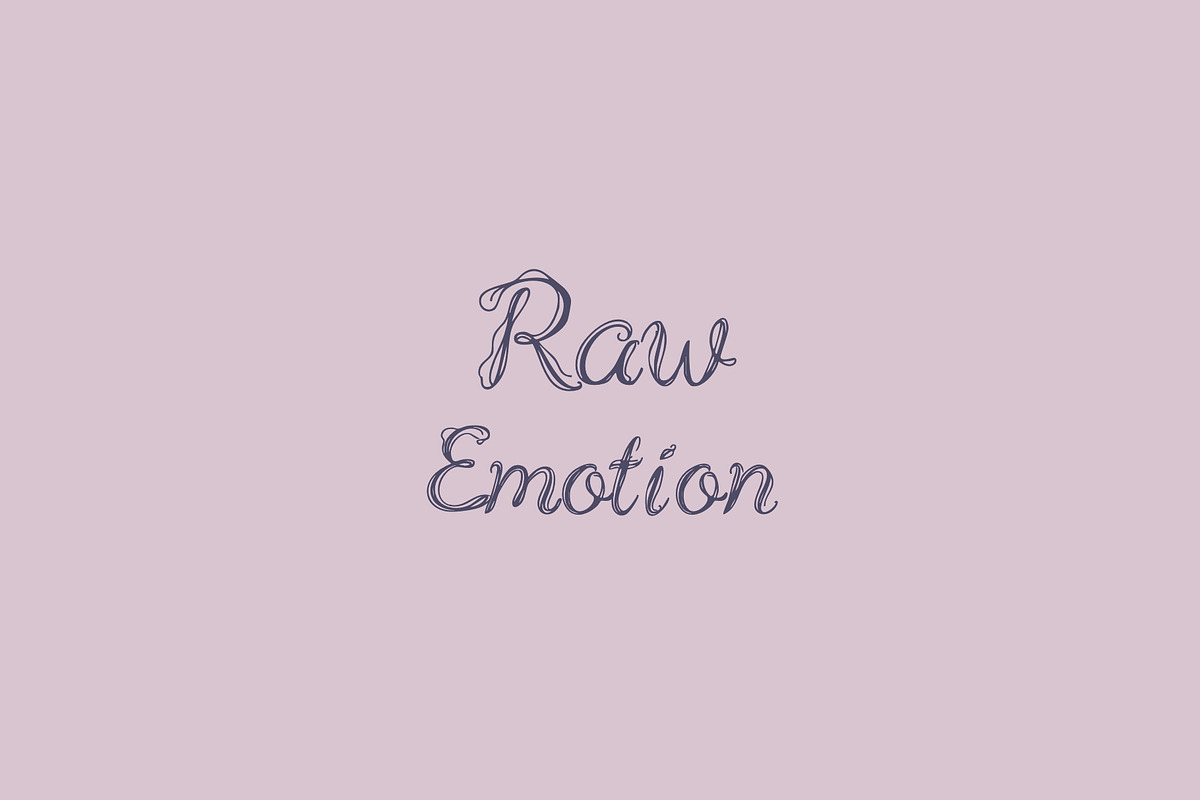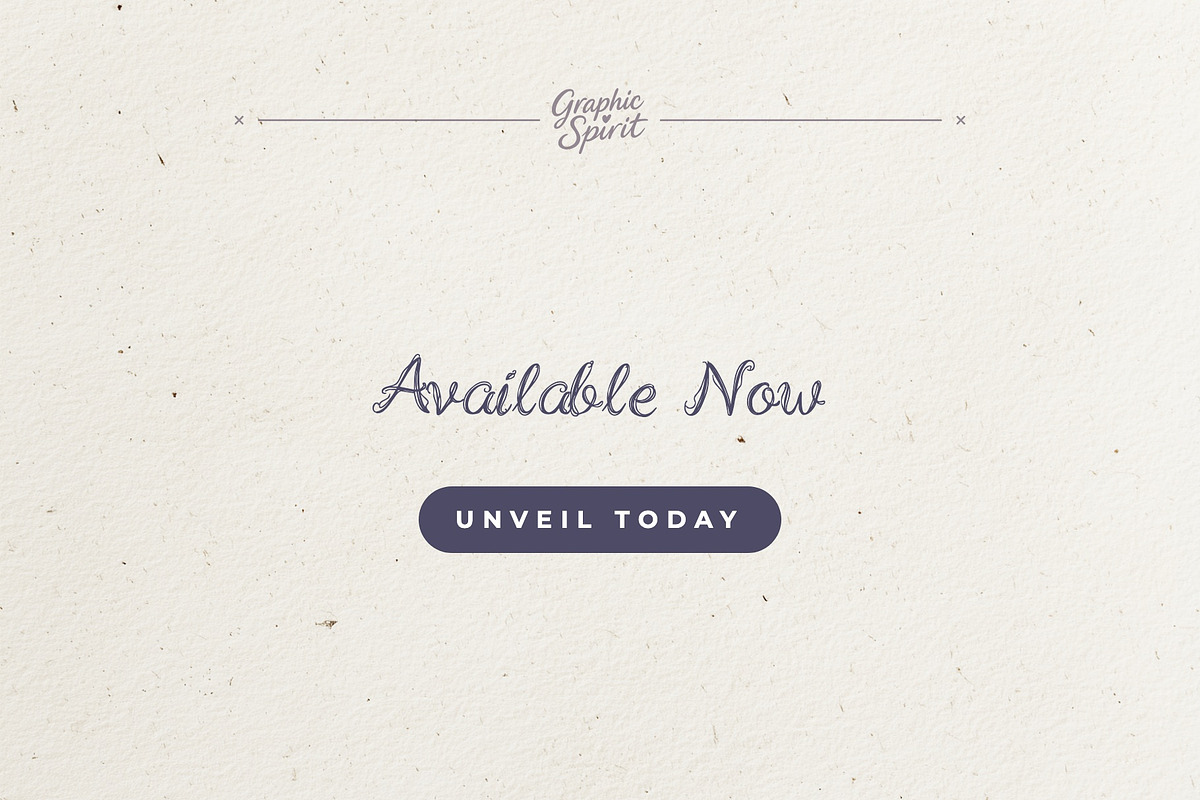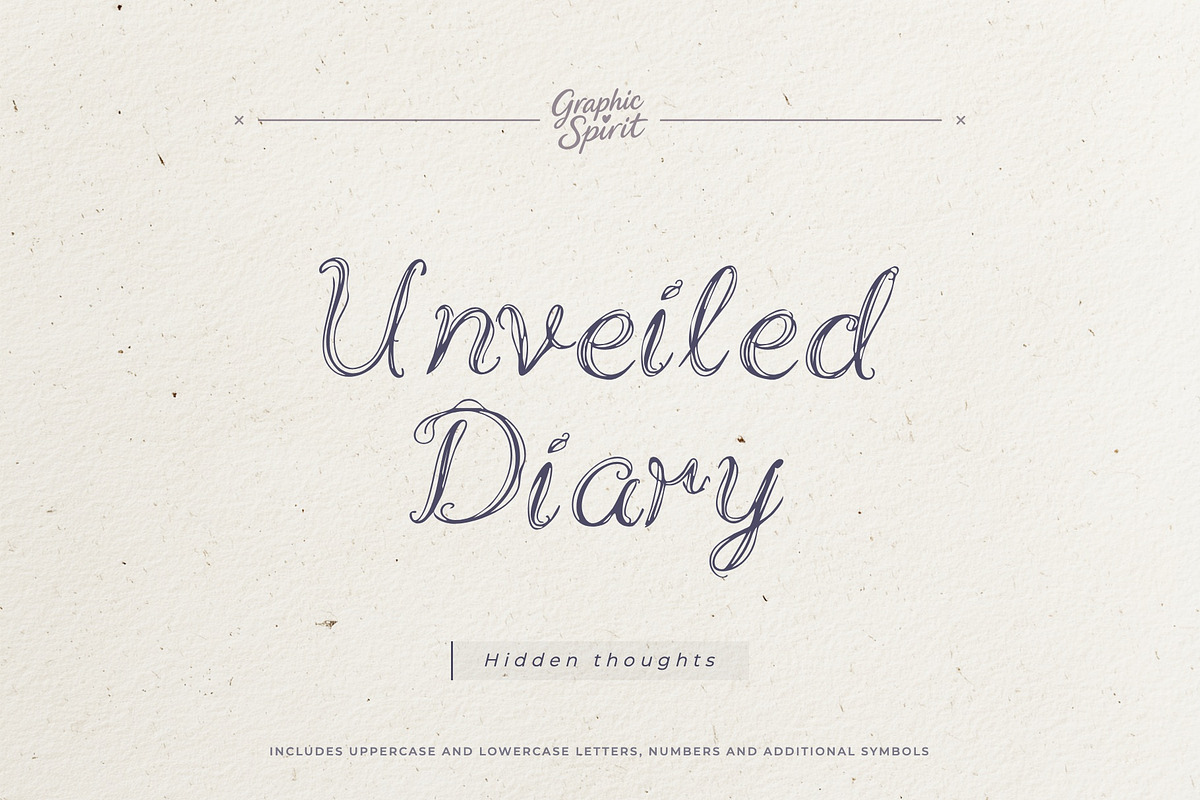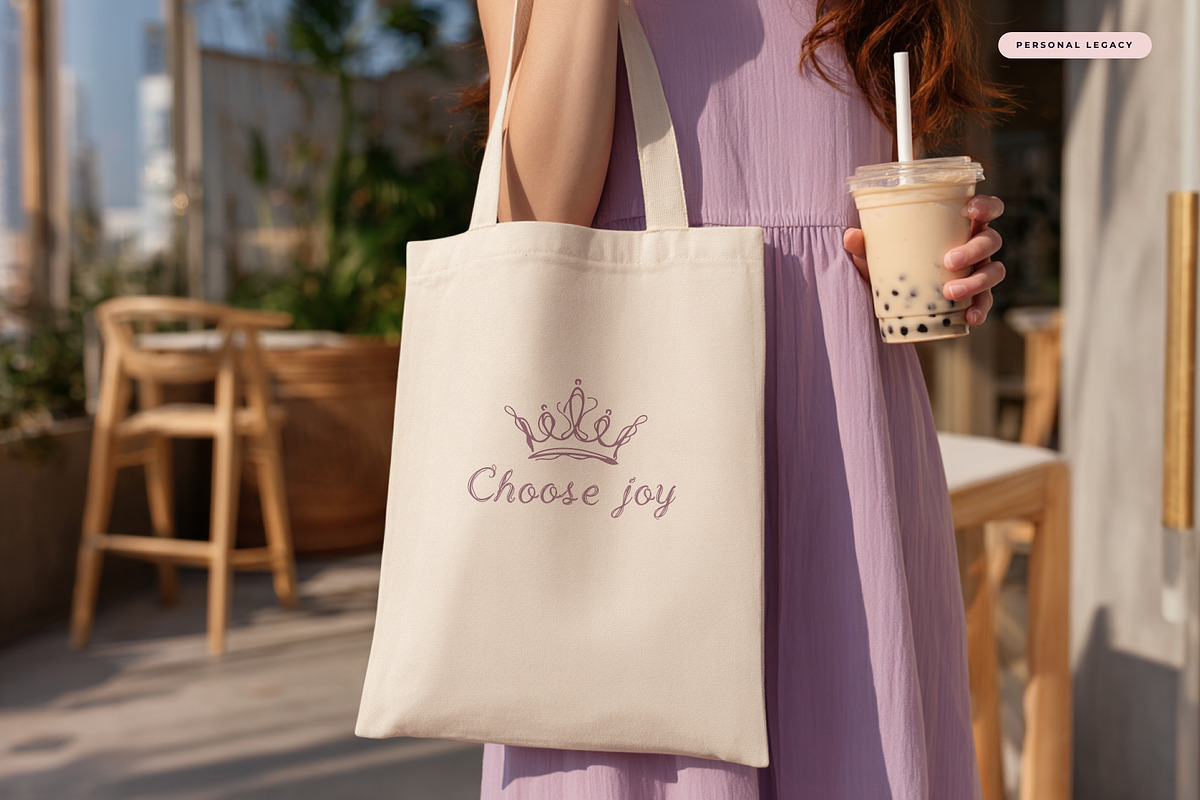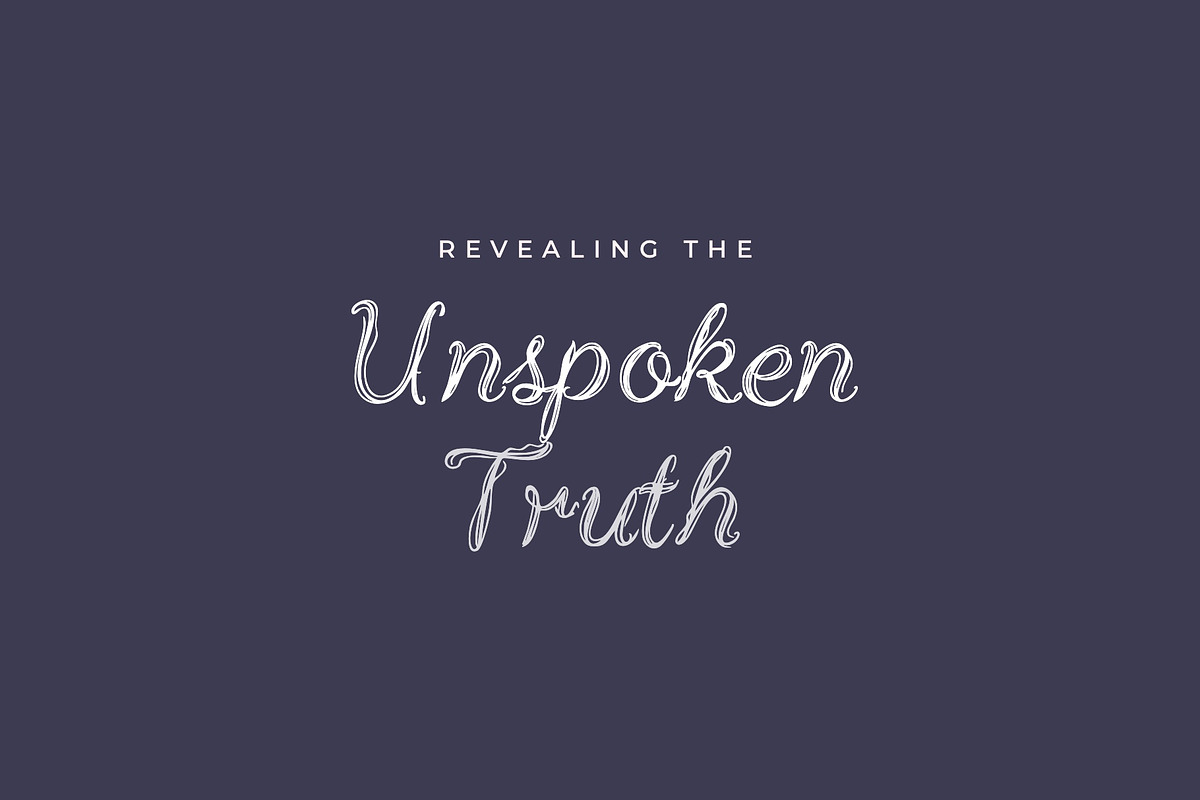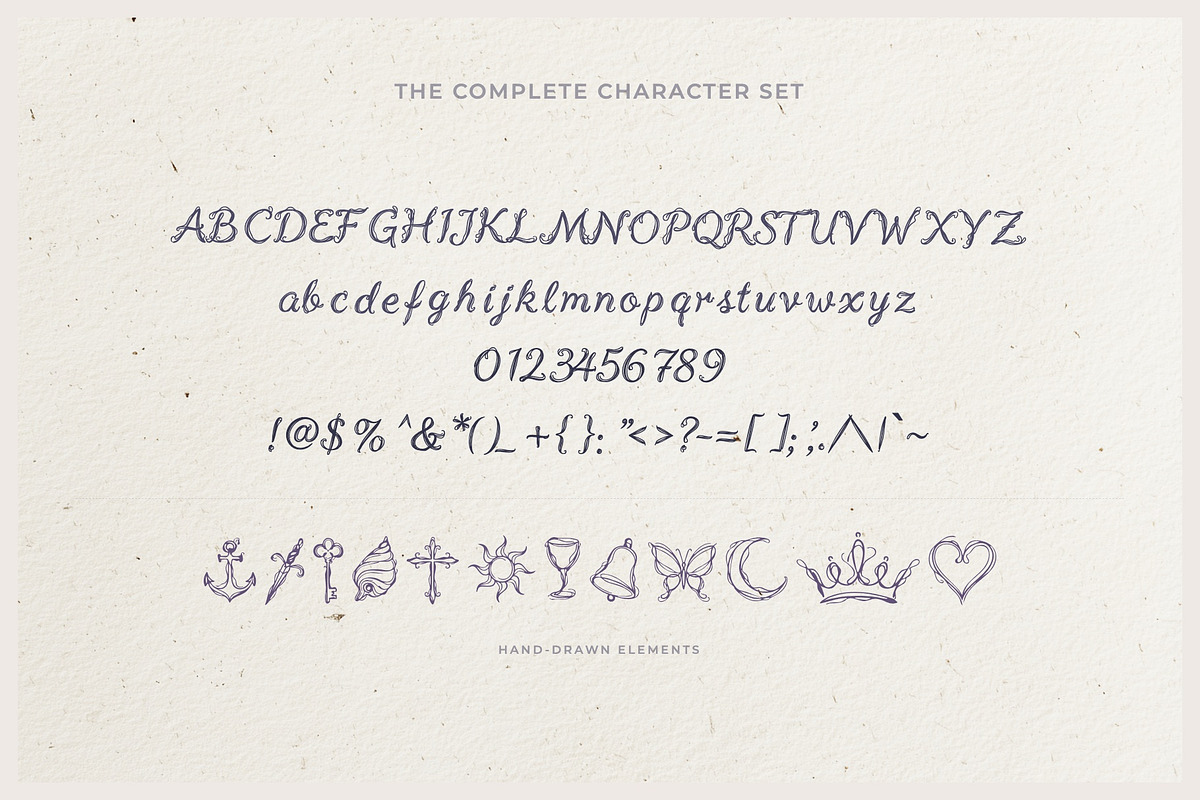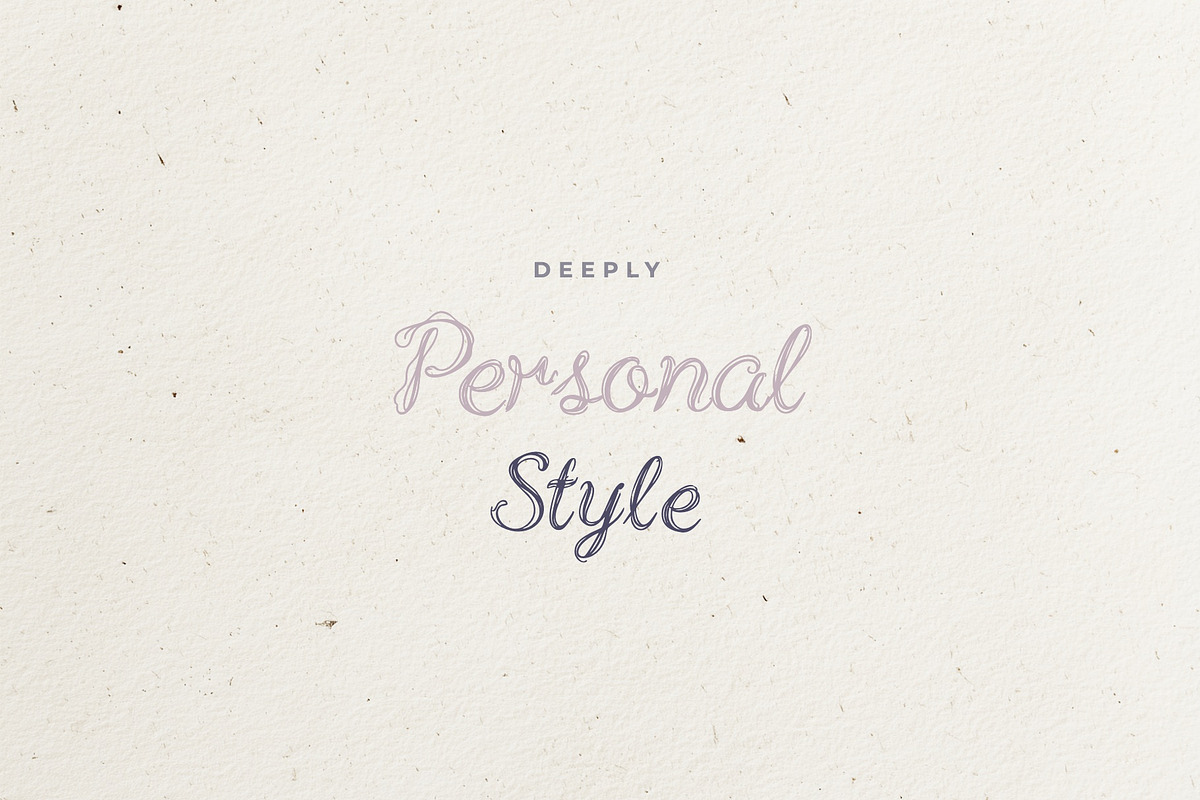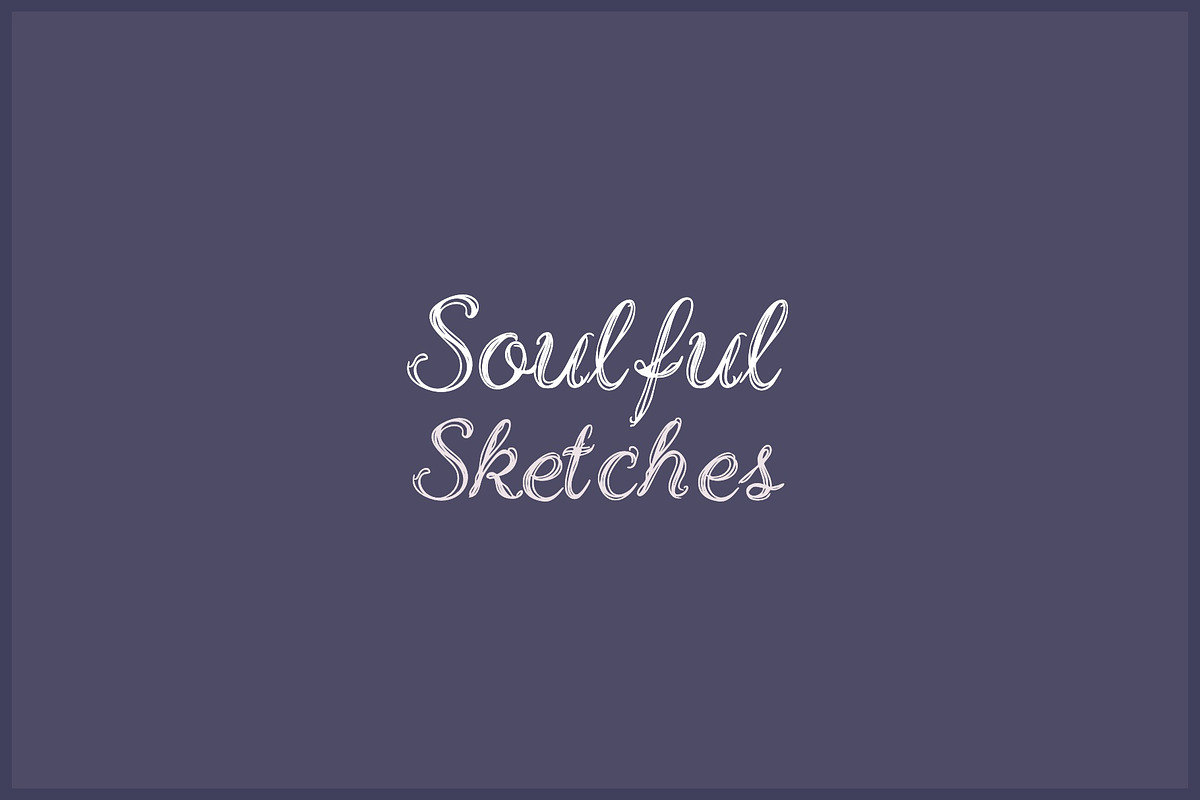
Unveiled Diary Decorative Font
✉️ Unveiled Diary is a premium script font crafted for creative professionals who demand authenticity and personal expression in their typography. This versatile typeface features natural handwritten flows and a heartfelt aesthetic, making it an essential tool for personal branding, intimate editorial design, and high-impact digital projects. Each character is designed with a specific warmth that adds a professional yet soulful touch to your visual narratives.
✉️ The font's unique glyphs and personal additions provide a state-of-the-art look that stands out in any professional environment. Whether you are creating a bespoke logo or a heartfelt headline, Unveiled Diary offers the flexibility and professional polish needed to make your work truly memorable. Integrate this high-quality asset into your workflow to achieve a seamless blend of authentic style and personal storytelling power across all your designs. ✉️